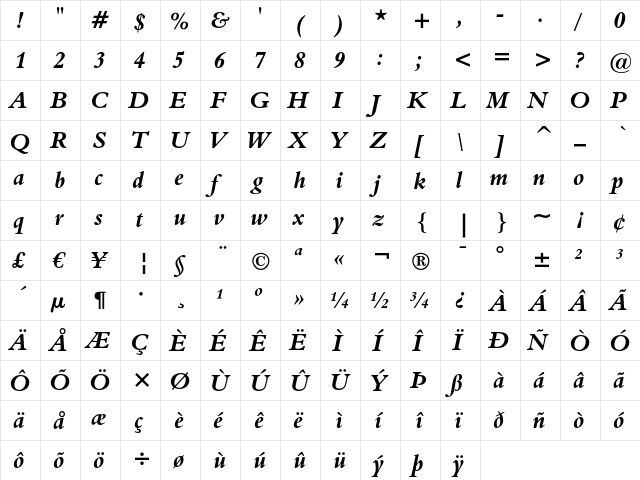
Aldine 401 Bold Italic
Design Context for Aldine 401 Typeface
Aldine 401 is a composed and adaptable typeface that performs quietly and consistently across a wide range of design contexts. The dynamic lean of this cut emphasises speed and emphasis in any layout. The heavy weight commands attention and anchors typographic hierarchies.